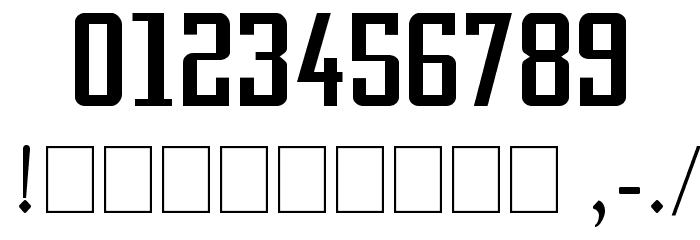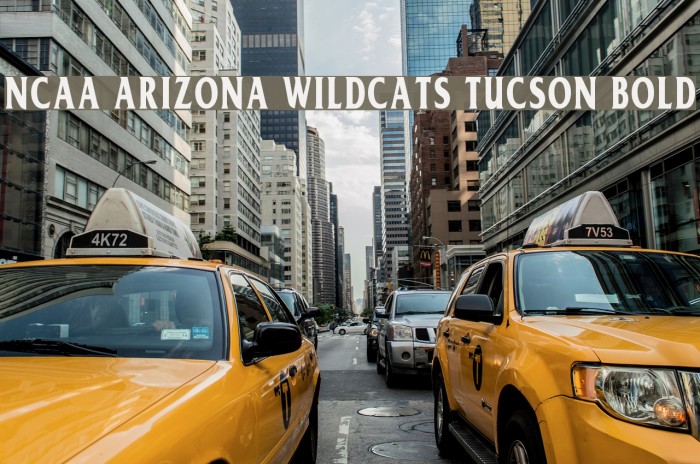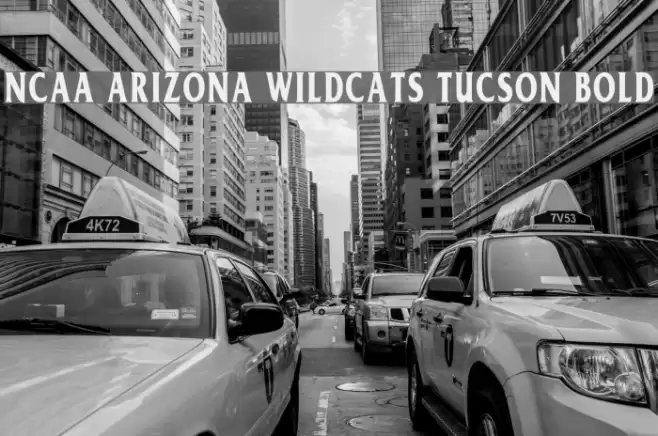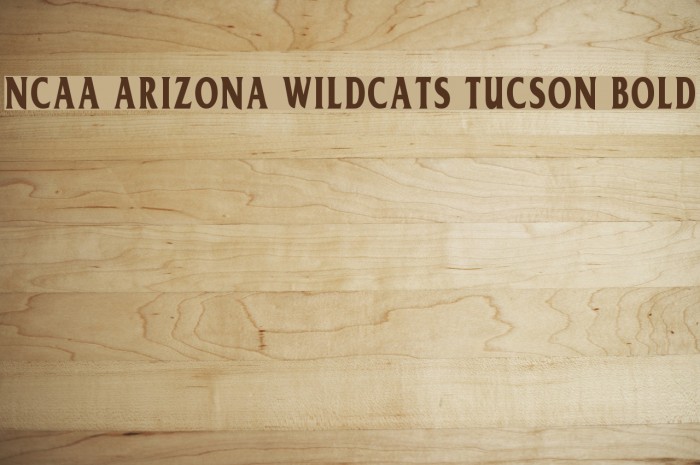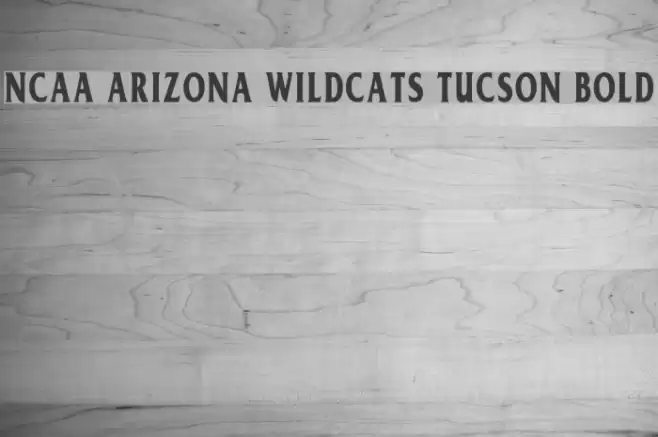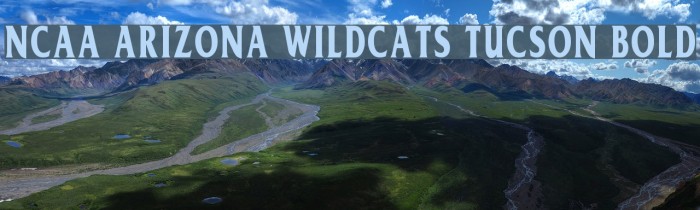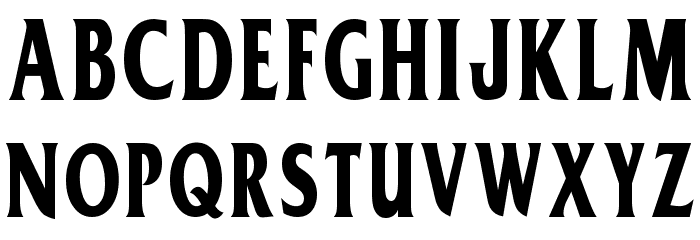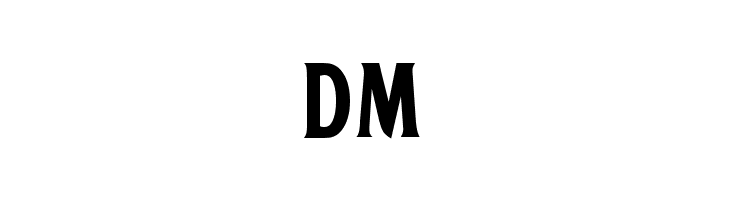
NCAA Arizona Wildcats Tucson Bold Font
NCAA Arizona Wildcats Tucson Bold Description
This bold and striking font features a strong, athletic style with a collegiate feel. The uppercase letters are robust and slightly condensed, giving a sense of power and stability. The numbers are equally bold, maintaining a consistent weight throughout. The font includes a set of special characters that complement its overall design, making it versatile for various applications. Its clean lines and sharp edges contribute to a modern yet timeless appearance, ideal for sports-related themes.
A bold, collegiate-style font with a strong, athletic appearance from Uncategorized fonts.